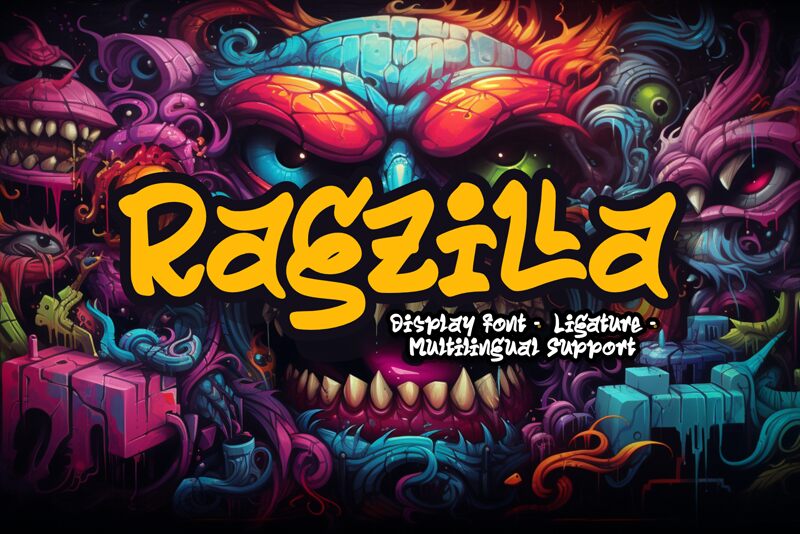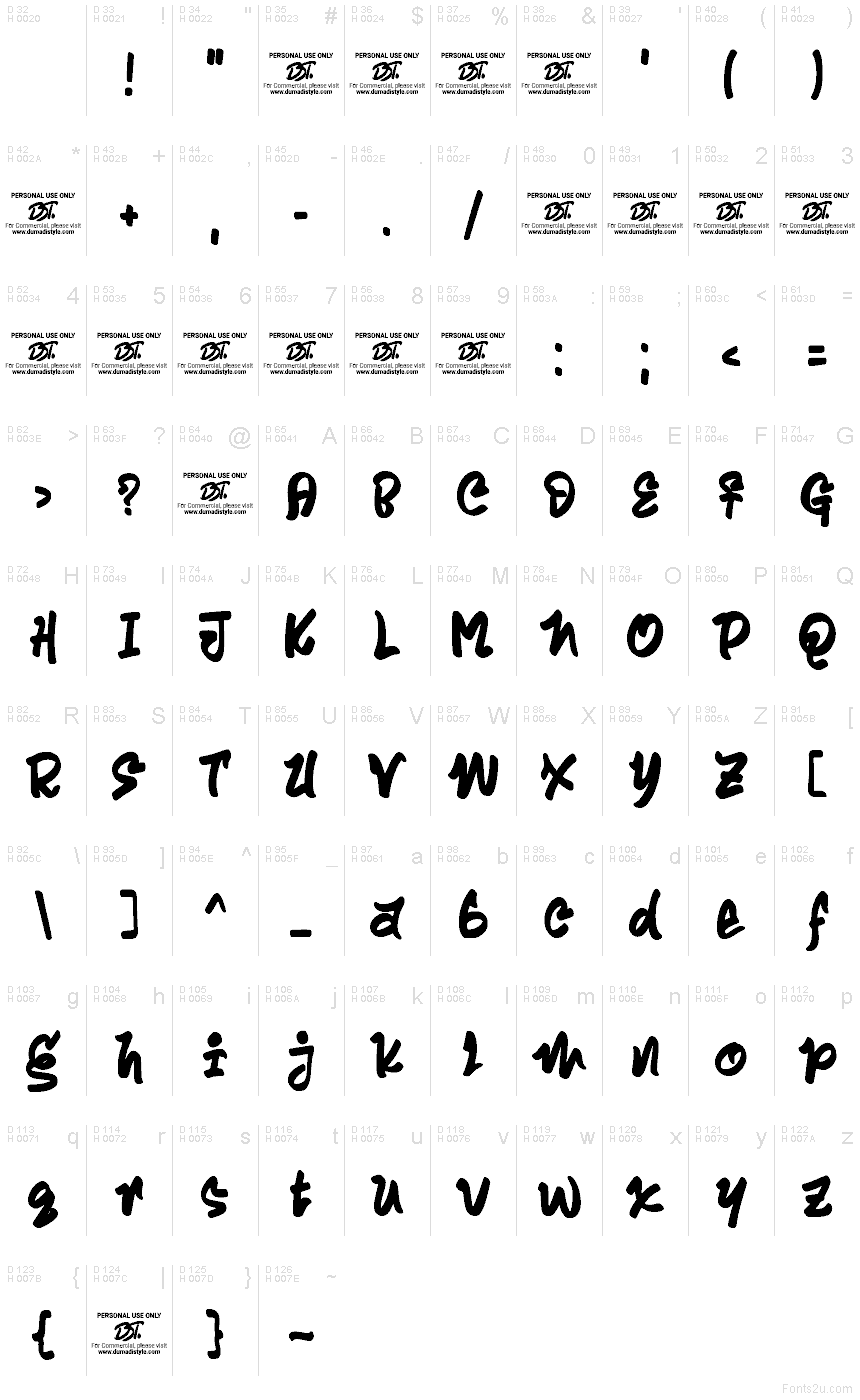
Ragzilla
Ragzilla font by DumadiStyle is a free graffiti typeface. Its thick, inky strokes bulge and twist like fresh marker lines, with a loose, springy rhythm that feels straight off a sticker bombed wall. Letters swell into each other, then snap back, creating a loud, joyful scrawl that reads fast and hits hard.
Using Ragzilla, your work shines on streetwear logos, album covers, skateboard decks, event posters, food-truck menus, and YouTube thumbnails. This free font thrives at big sizes with a touch of breathing room, letting those chunky curves do the talking. Pair it with a clean condensed sans for captions or pricing to keep the chaos grounded and the message clear.